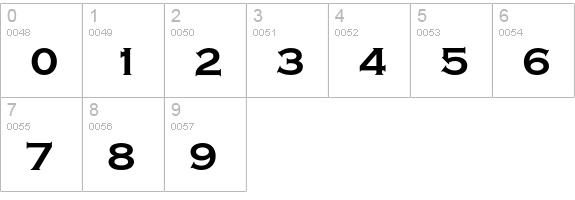
CopperplateEF-Bold Font Details
CopperplateEF-Bold is a strong, high-contrast variant in the CopperplateEF typeface family \xE2\x80\x94 well suited to headlines, attention-grabbing titles, and strong calls-to-action.
CopperplateEF-Bold is a striking and versatile font that exudes elegance and sophistication. Its bold weight and classic copperplate style make it perfect for a wide range of design projects, from invitations to logos to branding materials. The strong, clean lines of this font convey a sense of confidence and professionalism. What sets CopperplateEF-Bold apart is that it is available for free download at FontsMarket.com. This means that you can easily access and use this beautiful font without any cost, making it a valuable addition to your font collection. Whether you are a designer, a business owner, or simply someone looking to add some flair to your projects, CopperplateEF-Bold is a fantastic choice that won't break the bank. Download it today and elevate your designs with this timeless and stylish font.